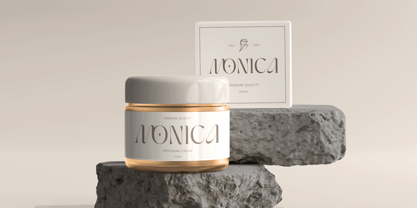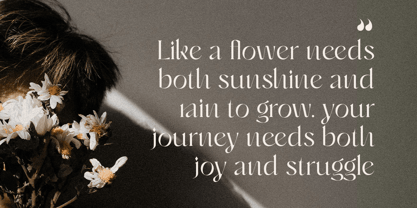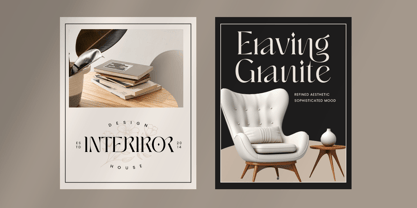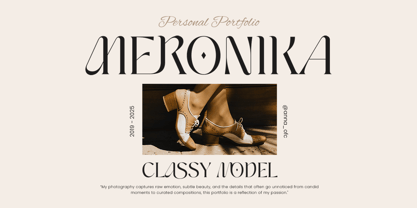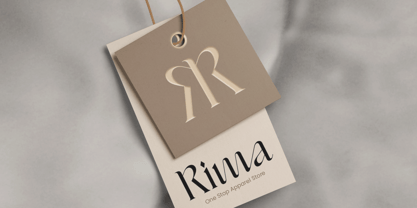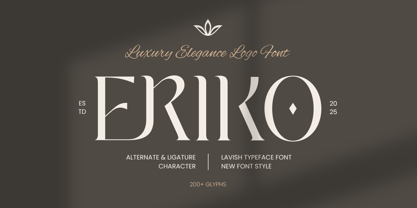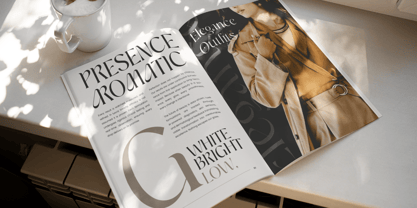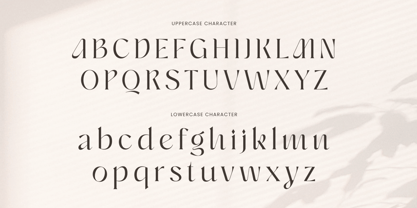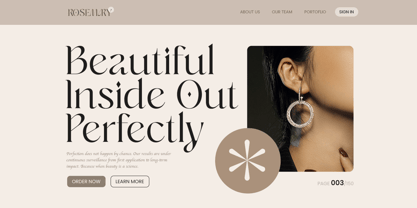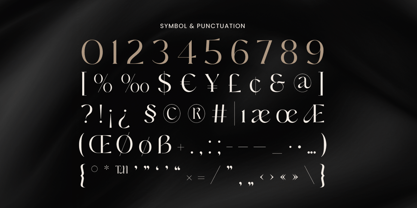
ERIKO is a modern luxury logo font designed for premium branding, logos, and elegant creative projects. Its sleek, refined letterforms provide a sophisticated, high-end aesthetic that enhances any design.
Inspired by contemporary elegance and minimalist luxury, ERIKO is ideal for fashion, lifestyle, and luxury brands in both print and digital media.
ERIKO – Modern Luxury Logo Font Features
Elegant and modern character set
Perfect for branding, logos, and premium designs
Uppercase, lowercase, numerals, and punctuation included
OpenType features for extra versatility
Multilingual support for Afrikaans, Albanian, Asu, Basque, Bemba, Bena, Breton, Chiga, Cornish, Dutch, English, Estonian, Filipino, Finnish, Friulian, Galician, German, Gusii, Indonesian, Irish, Italian, Kabuverdianu, Kalenjin, Kinyarwanda, Luo, Luxembourgish, Luyia, Machame, Makhuwa-Meetto, Makonde, Malagasy, Manx, Morisyen, North Ndebele, Nyankole, Oromo, Portuguese, Quechua, Romansh, Rombo, Rundi, Rwa, Samburu, Sango, Sangu, Scottish Gaelic, Sena, Shambala, Shona, Soga, Somali, Spanish, Swahili, Swedish, Swiss, and more.
Eriko